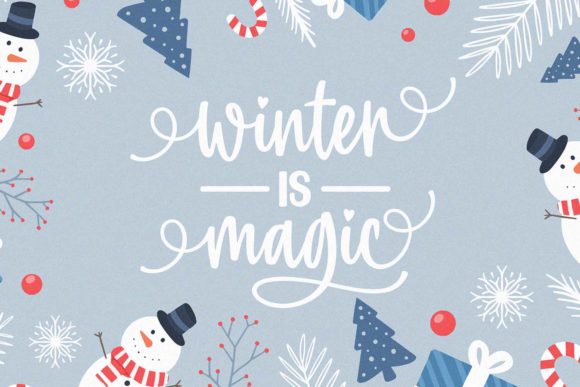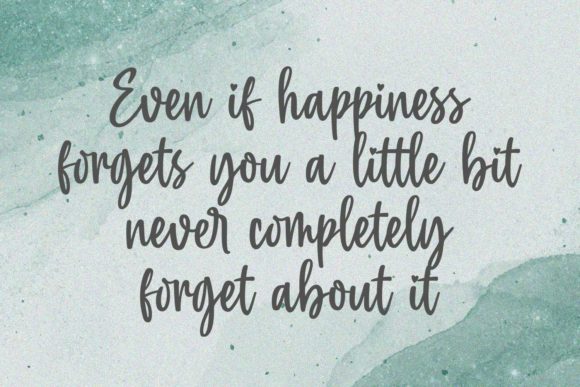
Heylia Font
db-ku.com - Script & Handwritten -- Heylia is a flowing handwritten font, described by an elegant touch, perfect for your favorite projects.